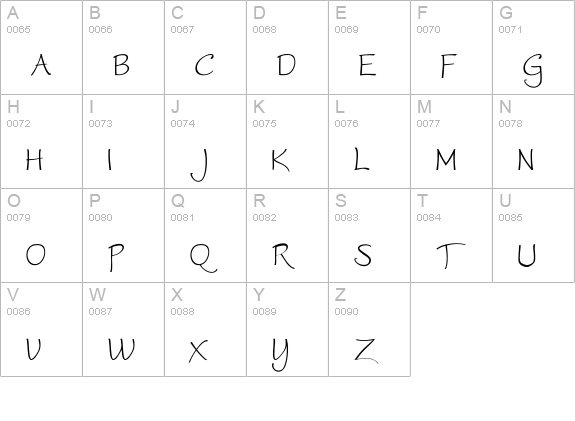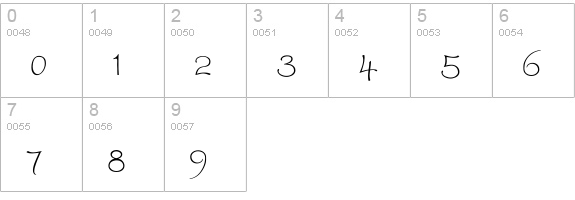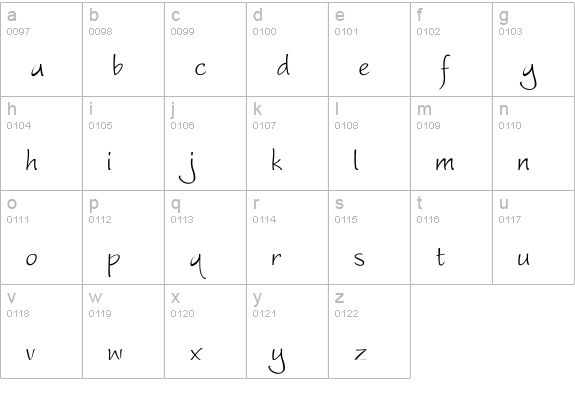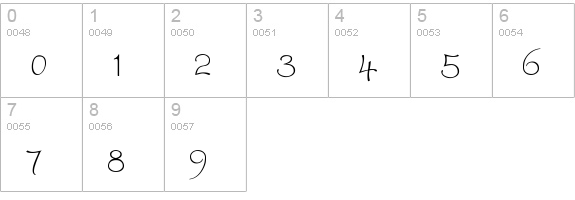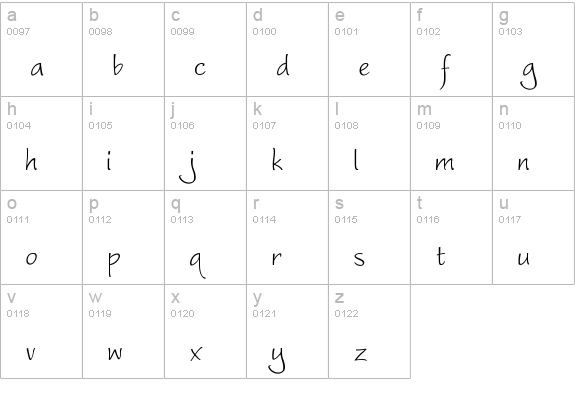
Worstveld Sling font is a unique and eye-catching typeface that exudes a sense of creativity and playfulness. Its quirky design features elongated letters with exaggerated curves and loops, giving it a distinct and whimsical appearance. Perfect for adding a touch of personality to any project, this font is sure to make a statement and captivate attention. Best of all, Worstveld Sling font is available for free download at FontsMarket.com. This means you can easily access this captivating font and use it in your designs without any cost. Whether you're creating posters, logos, or social media graphics, Worstveld Sling font offers a fun and innovative way to express your message. Don't miss out on this fantastic opportunity to enhance your projects with this delightful typeface – download it for free today!